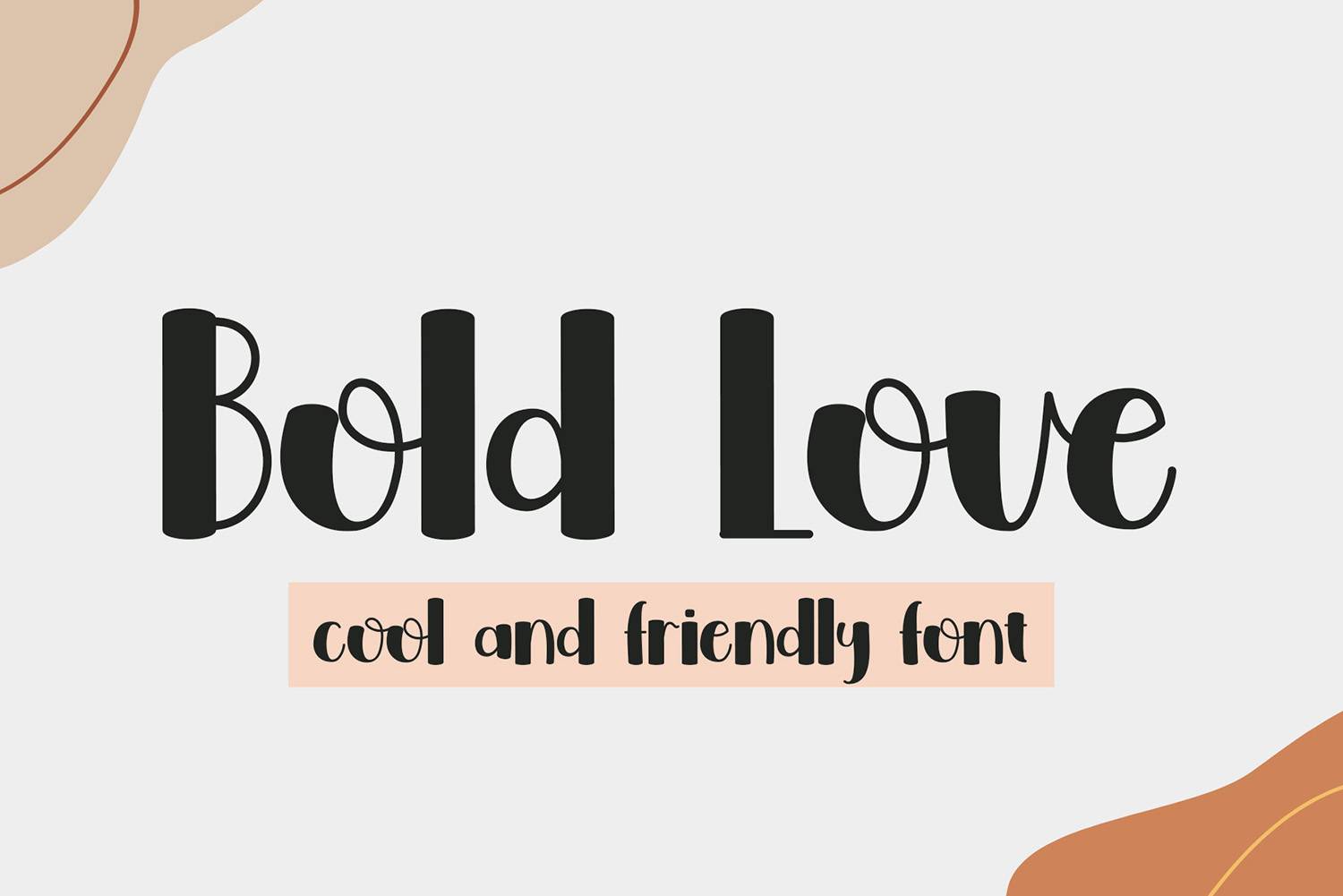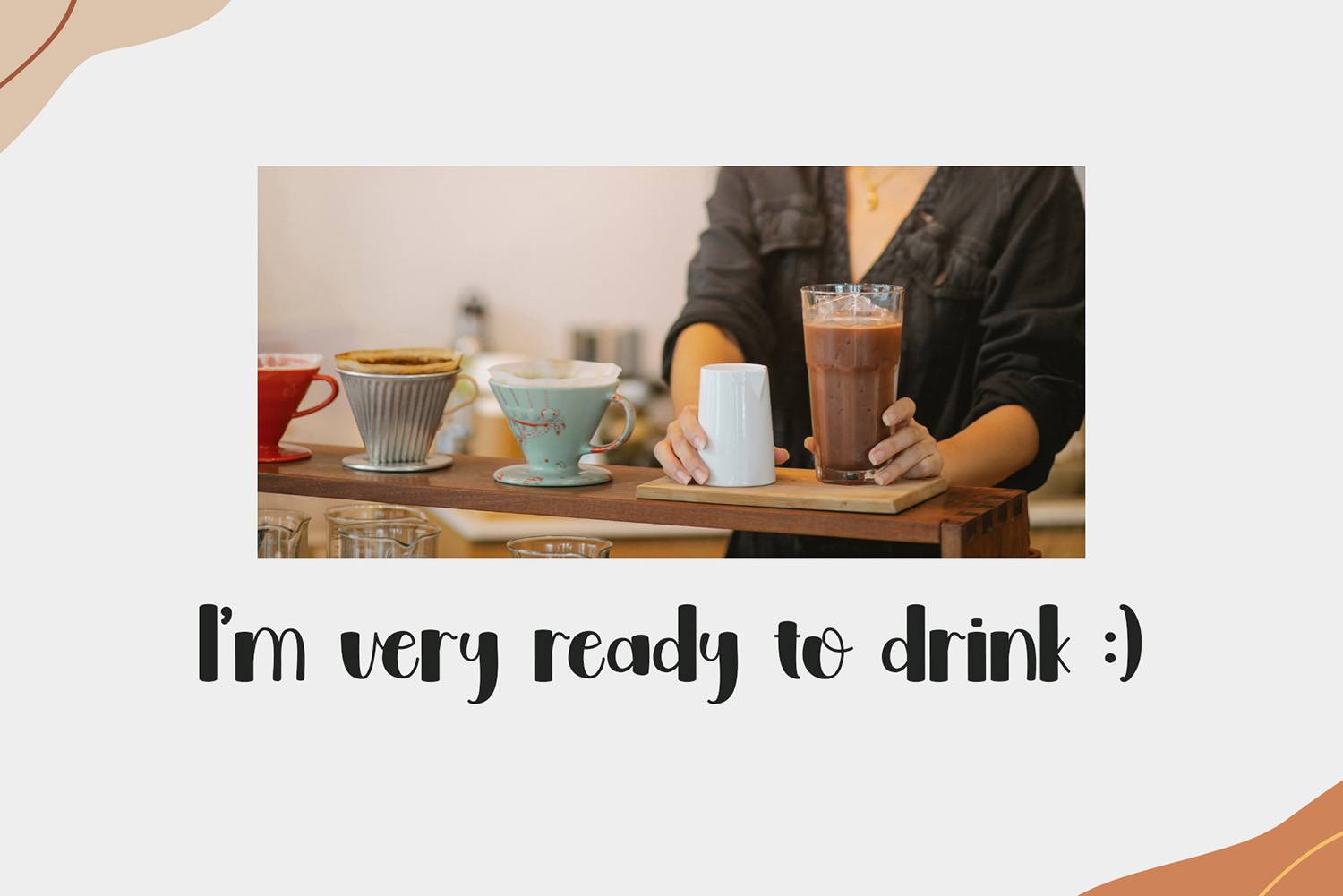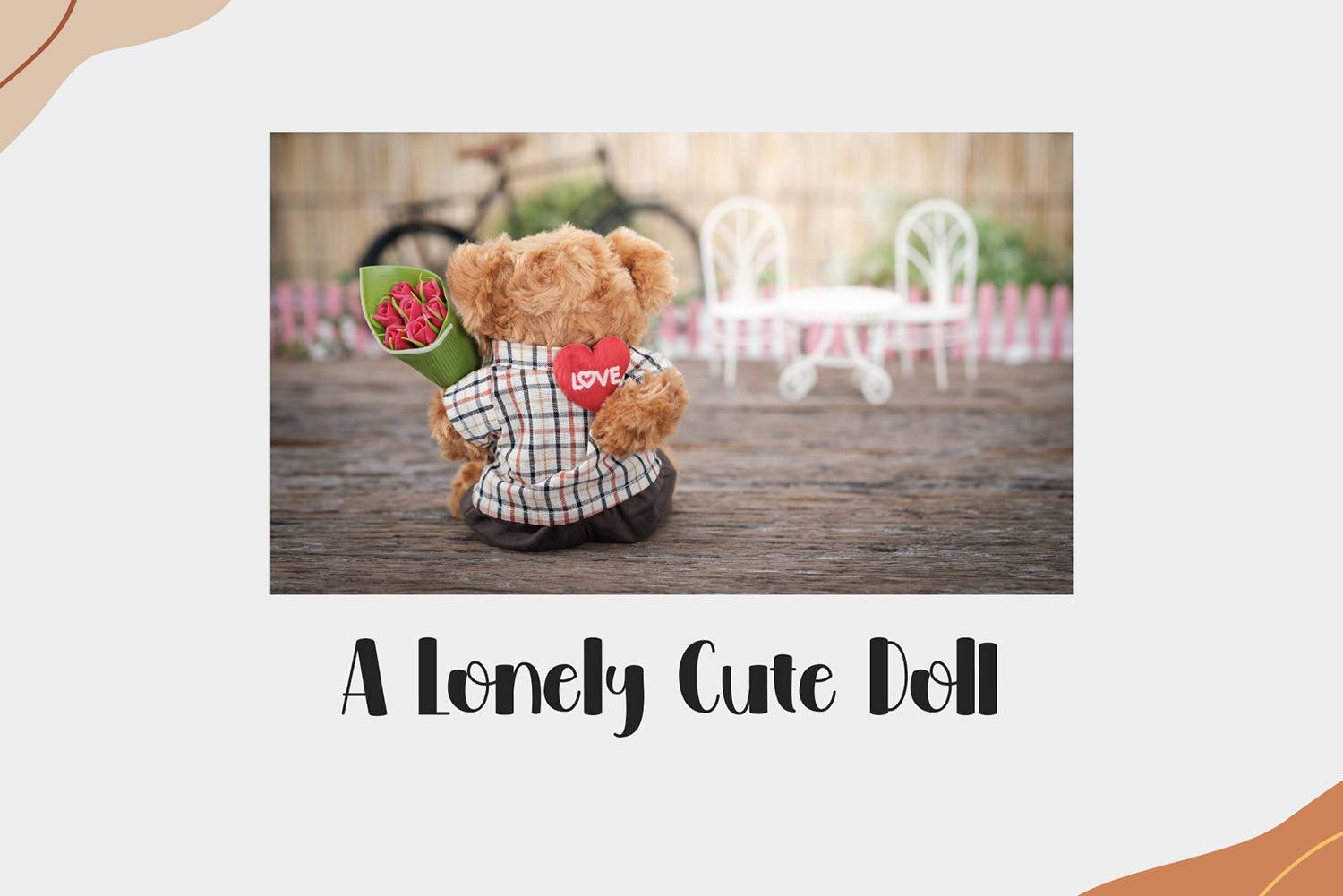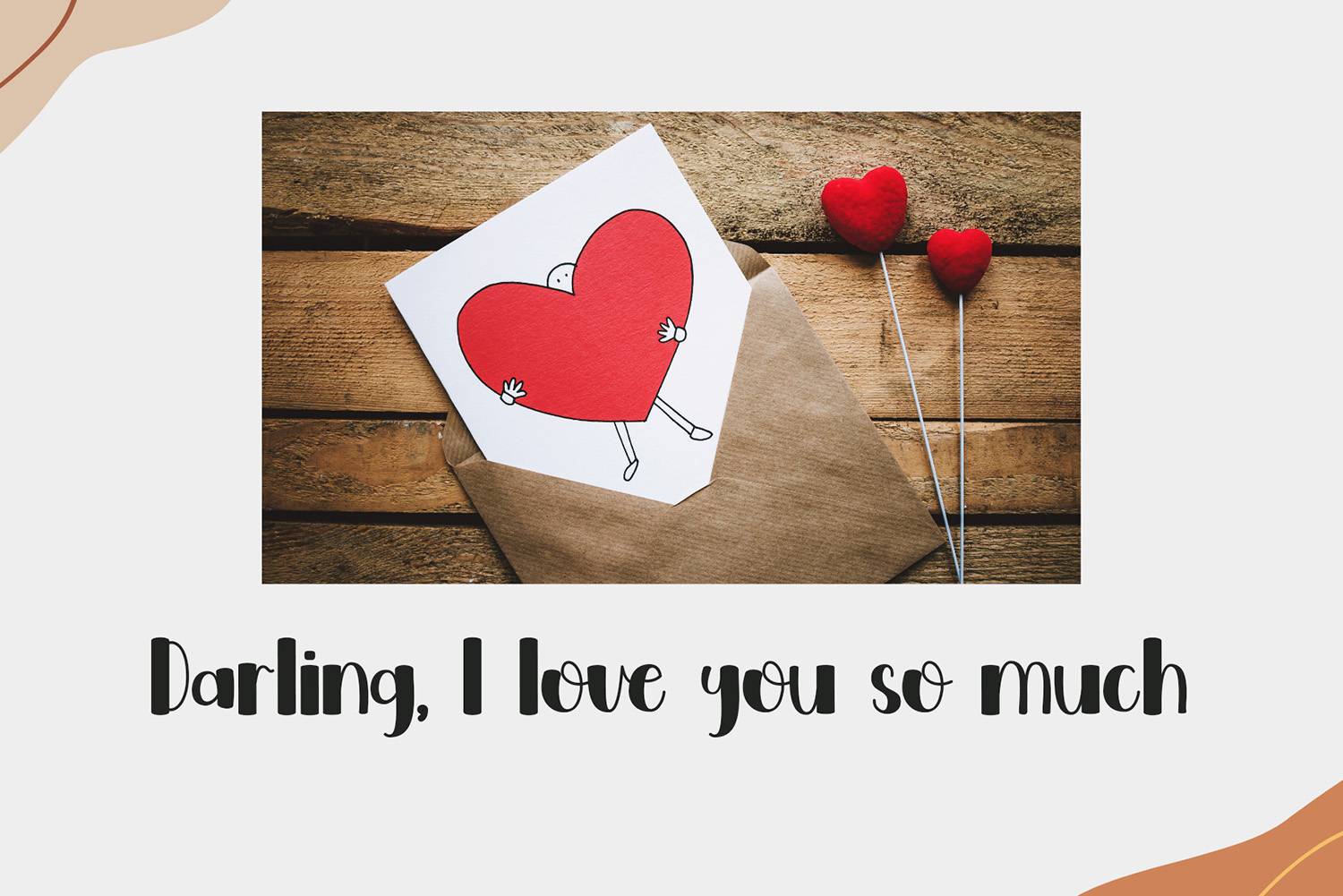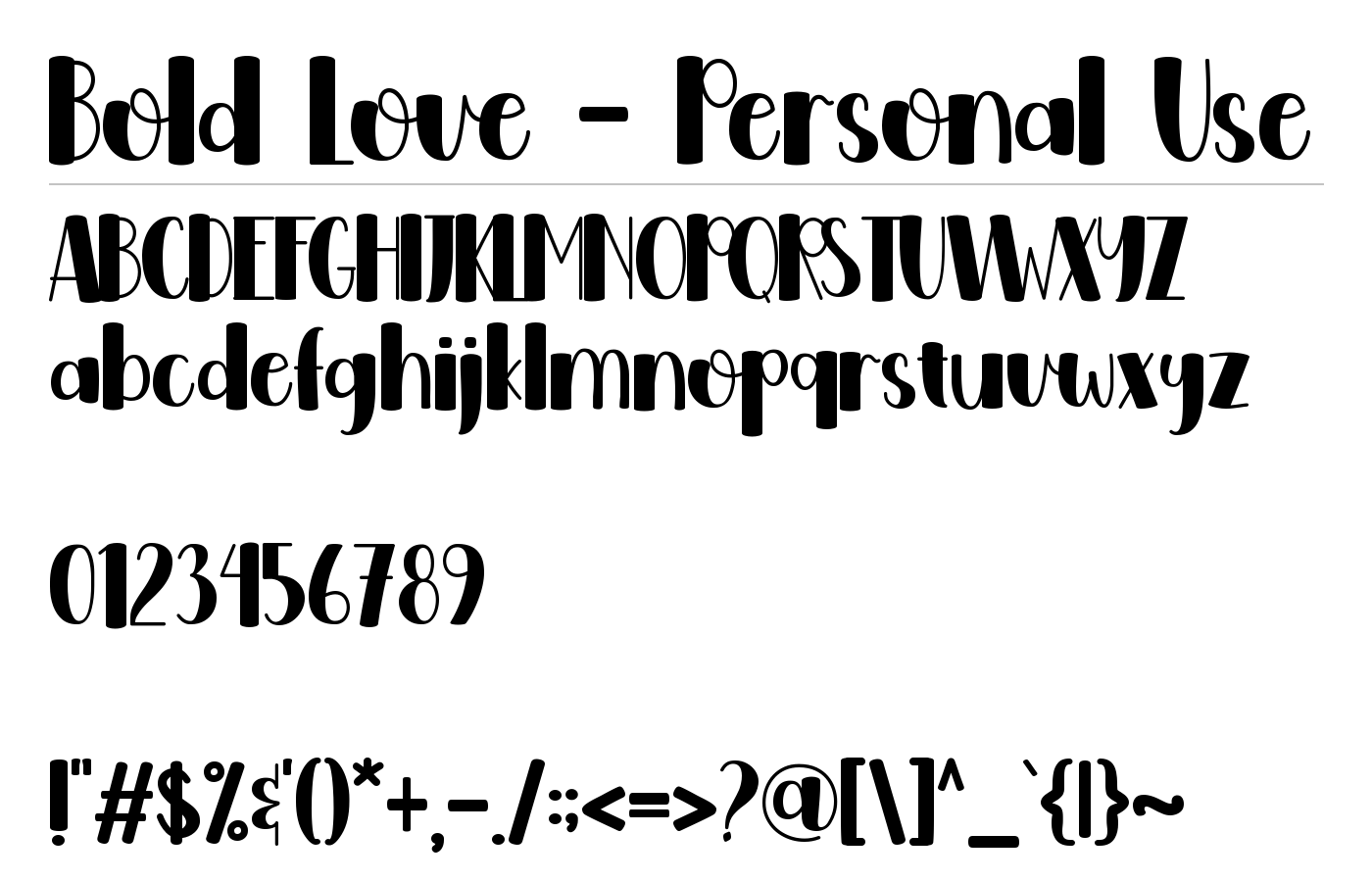
Bold Love is a playful and stylish sans serif font featuring a strong contrast between thick and thin strokes with tall, narrow letterforms. Its whimsical curls and swashes add a lively, hand-crafted feel, making it perfect for cheerful branding, invitations, and creative headlines. This font brings a fun and modern personality to projects that want to stand out with charm and elegance.
Bold Love Font
About Bold Love Font
| Font family | Bold Love Font |
| Designer | Endri Sulistyawan |